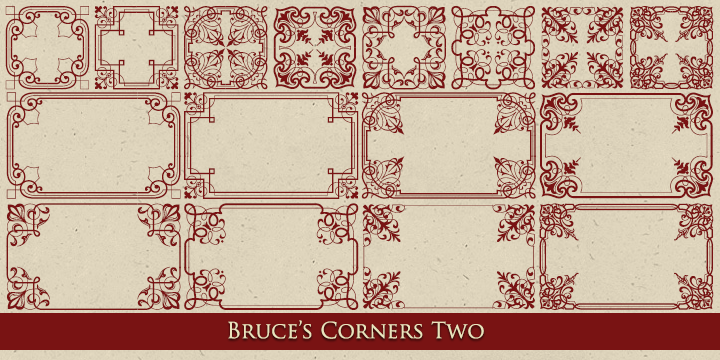
MFC Bruce Corners Two
by Monogram Fonts Co.
The MFC Bruce Corners Two Font Family was designed by Brian J. Bonislawsky and published by Monogram Fonts Co.. MFC Bruce Corners Two contains 1 styles.
Bruce Corners Two continues the revival of ornamental metal corner designs originally featured in the 1882 Specimens of Printed Types from Bruce’s New-York Type-Foundry. Expanding upon the refined decorative language of the era, this installment introduces more intricate scrollwork, botanical-inspired flourishes, and richer ornamental density while preserving the balanced elegance characteristic of historic American metal type. Ideal for wedding invitations, certificates, boutique branding, packaging, menus, and editorial layouts that call for stronger decorative presence, Bruce Corners Two provides designers with ornate corners, coordinated precision rules, alternate variations, and framing elements that allow for expressive yet controlled border construction. The enhanced detail lends itself particularly well to romantic, heritage-inspired, and classic typographic compositions. Meticulously digitized for modern design software, Bruce Corners Two transforms authentic 19th-century American ornament into a versatile framing system that bridges refinement and expressive flourish. Whether used to elevate typography subtly or to create richly detailed decorative borders, this collection delivers timeless engraved character with contemporary usability.